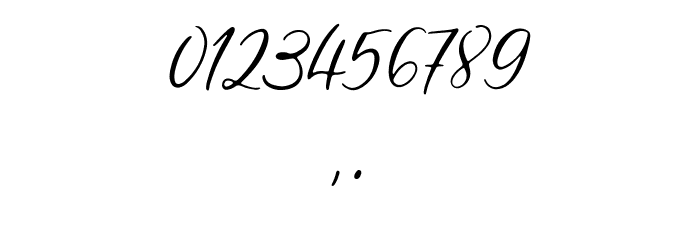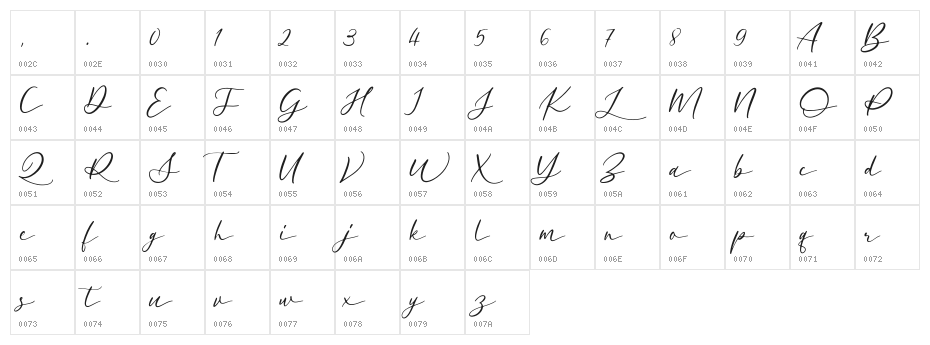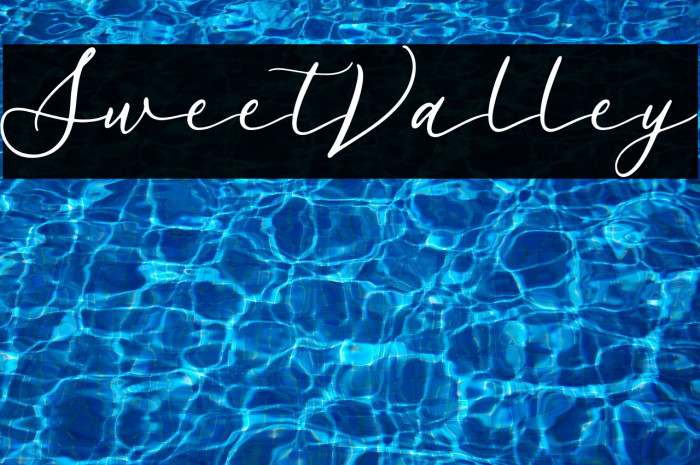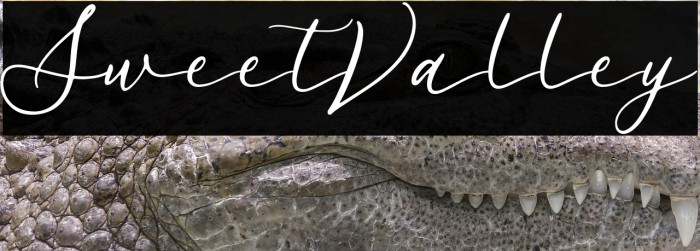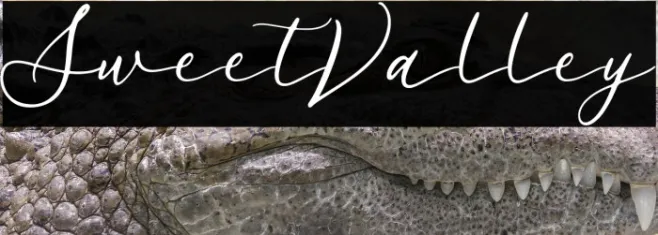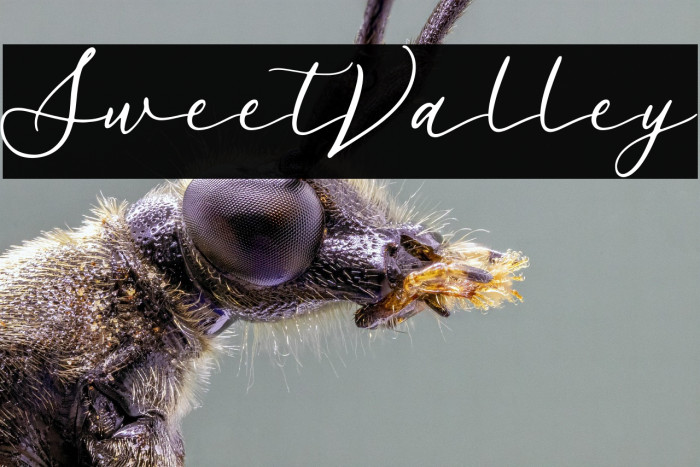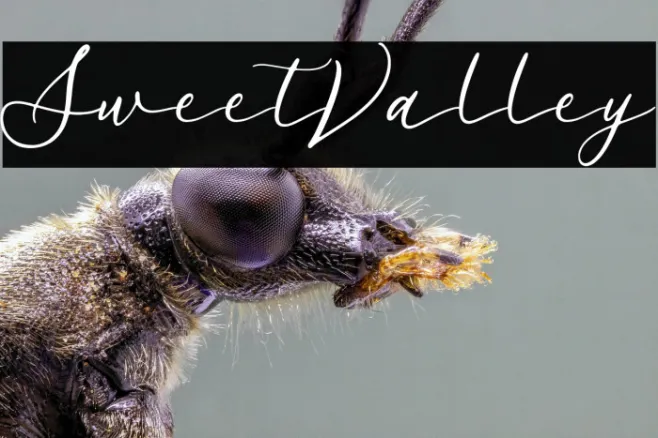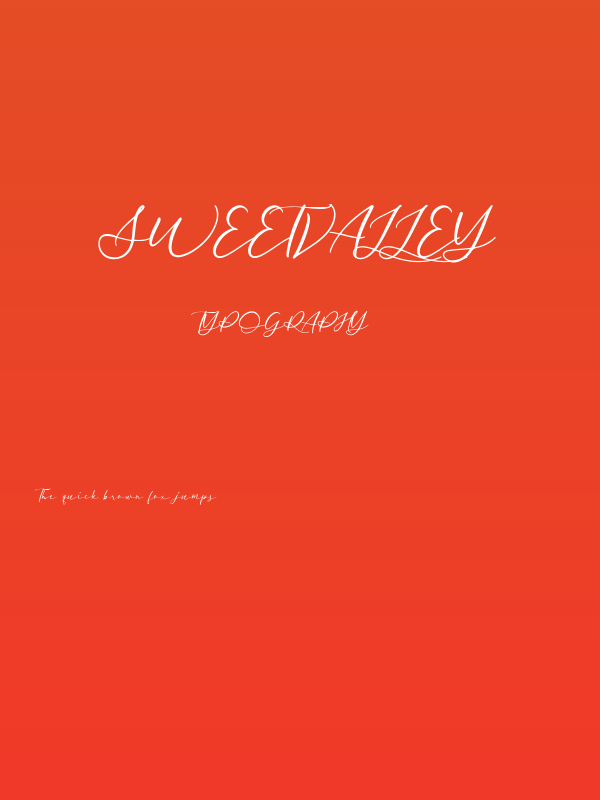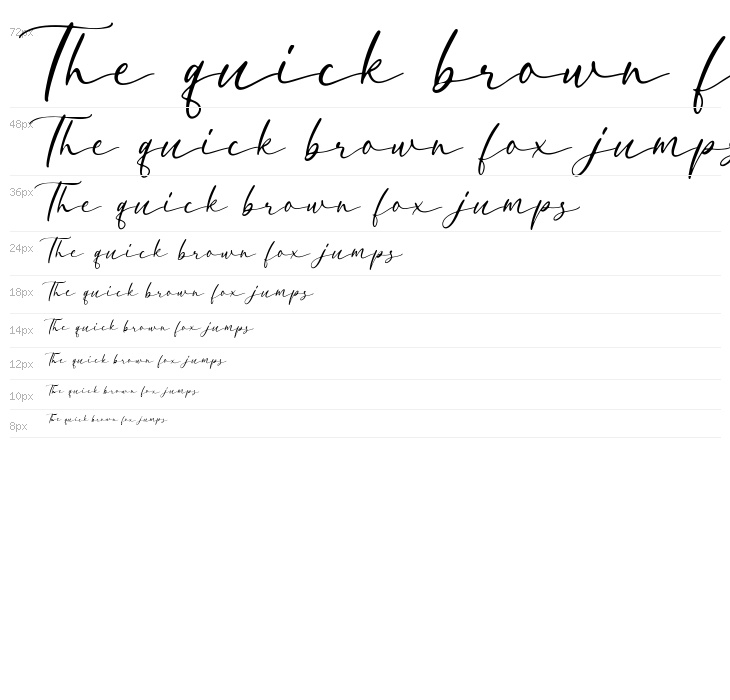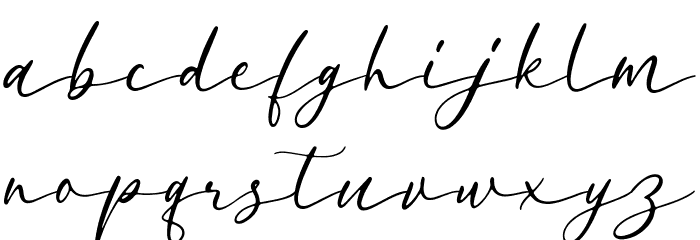
SweetValley Font
SweetValley Description
This elegant script font features a flowing, handwritten style with smooth, connected strokes. The uppercase letters are ornate, with graceful loops and flourishes, giving a sophisticated and artistic appearance. The lowercase letters maintain a consistent flow, enhancing readability while retaining a personal touch. The numerals are stylish and align well with the overall aesthetic, making them suitable for decorative purposes. The special characters are thoughtfully designed to match the script's elegance, ensuring a cohesive look across all text elements.
| Overall Style | Elegant, Artistic |
| Proposed Projects | Ideal for wedding invitations, greeting cards, branding projects, and elegant packaging designs. |